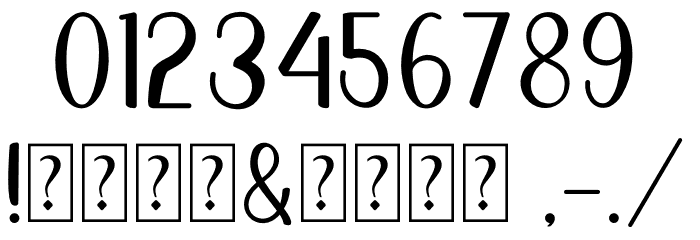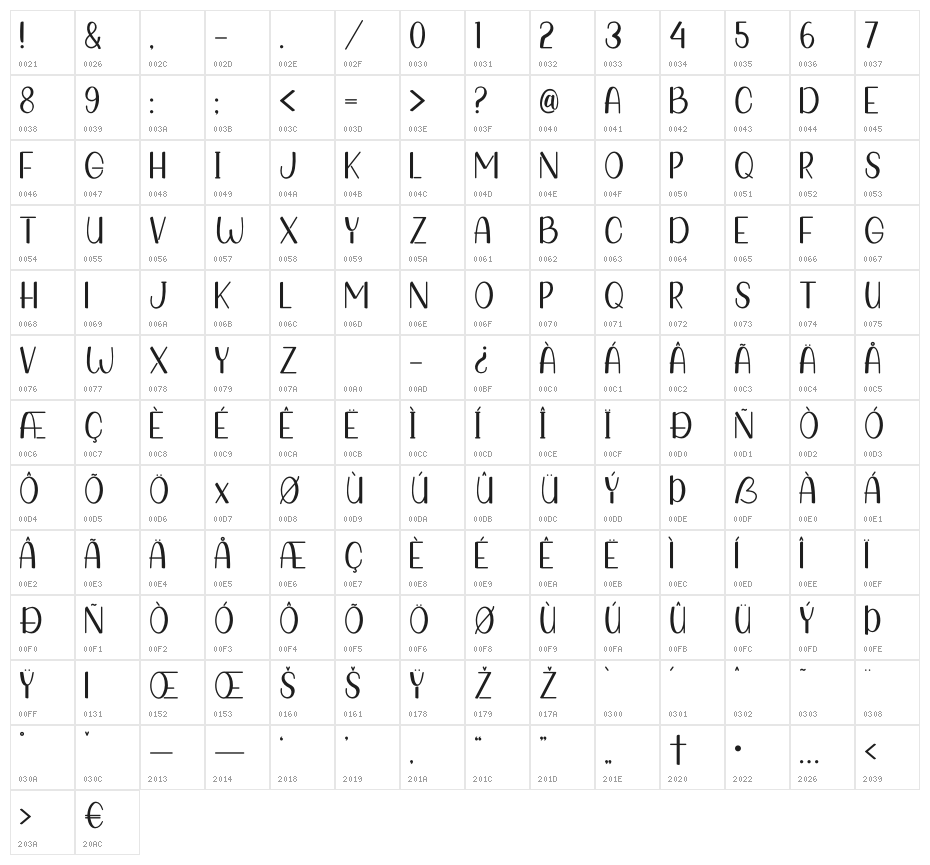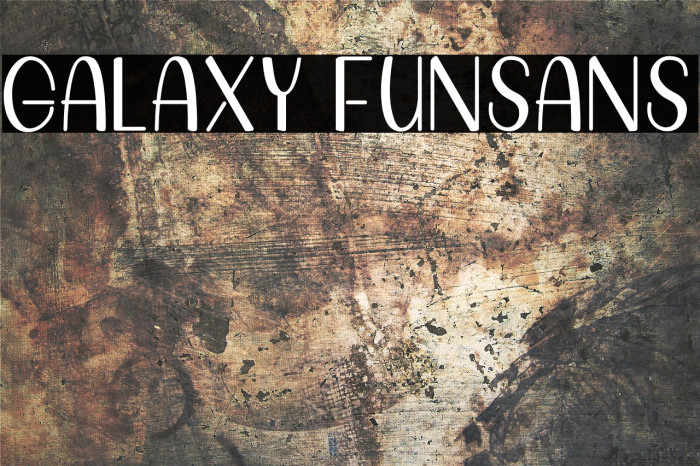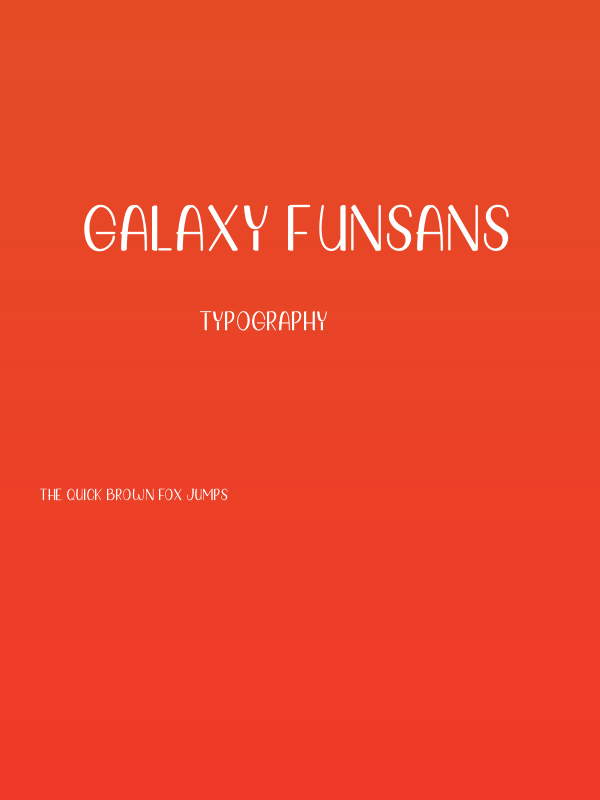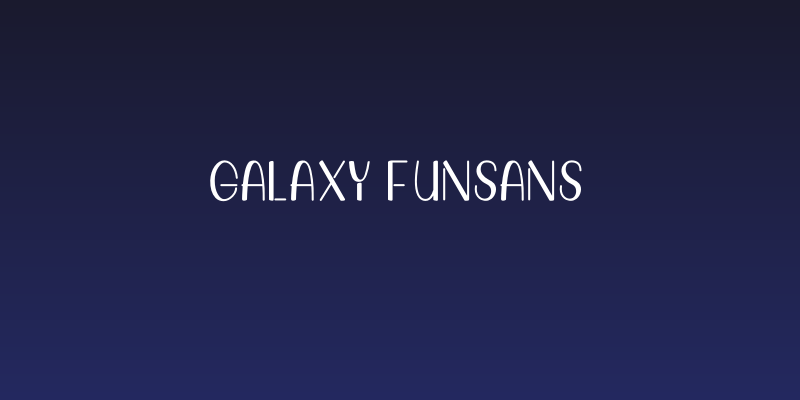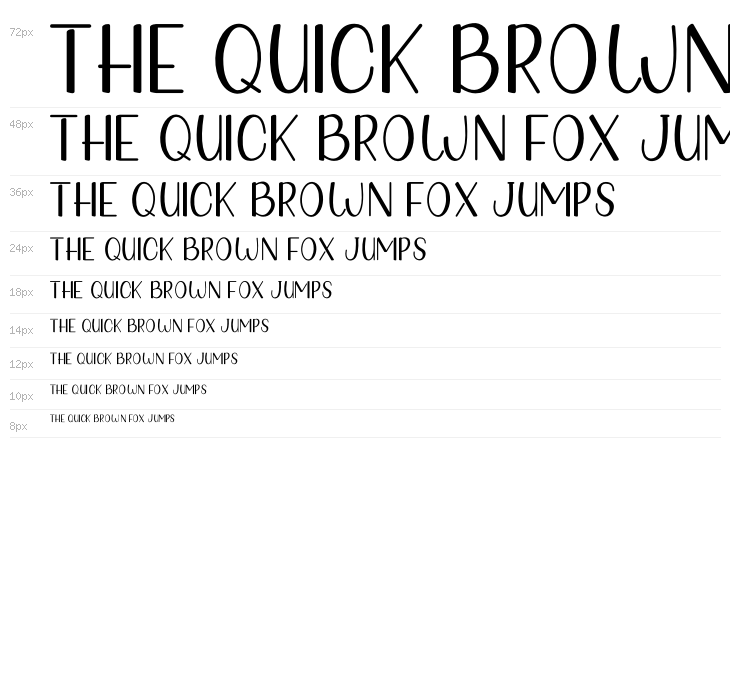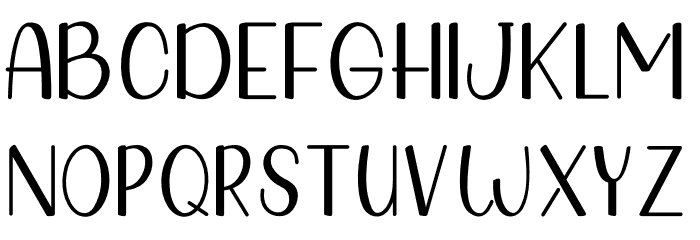
Galaxy Funsans Font
Galaxy Funsans Description
This font features a playful and modern design with a unique blend of rounded and angular elements. The uppercase letters are bold and slightly condensed, giving a strong presence, while the lowercase letters maintain a consistent style with a touch of whimsy. The numerals are distinct and easy to read, with a slight curve that adds to the overall playful aesthetic. Special characters are creatively designed, adding to the font's versatility. The font's style is suitable for projects that require a fun and engaging look, such as children's books, playful branding, or creative posters.
| Proposed Projects | Ideal for children's books, playful branding, creative posters, and any project needing a fun, engaging look. |